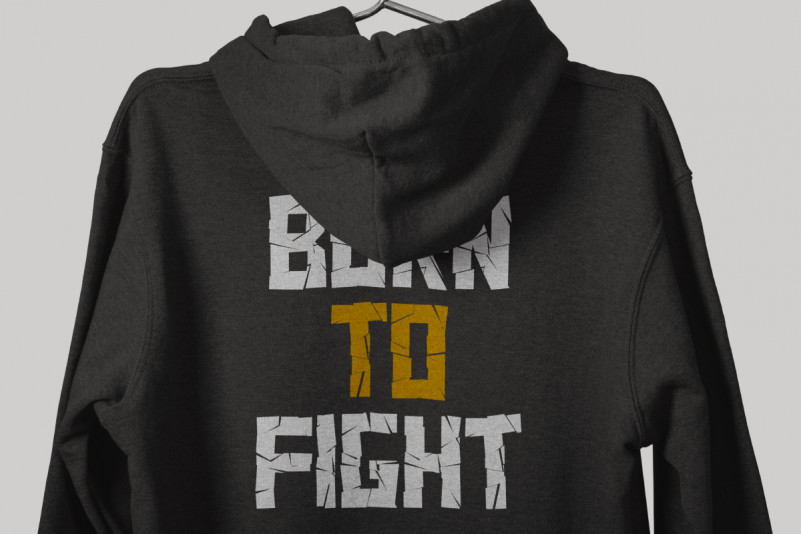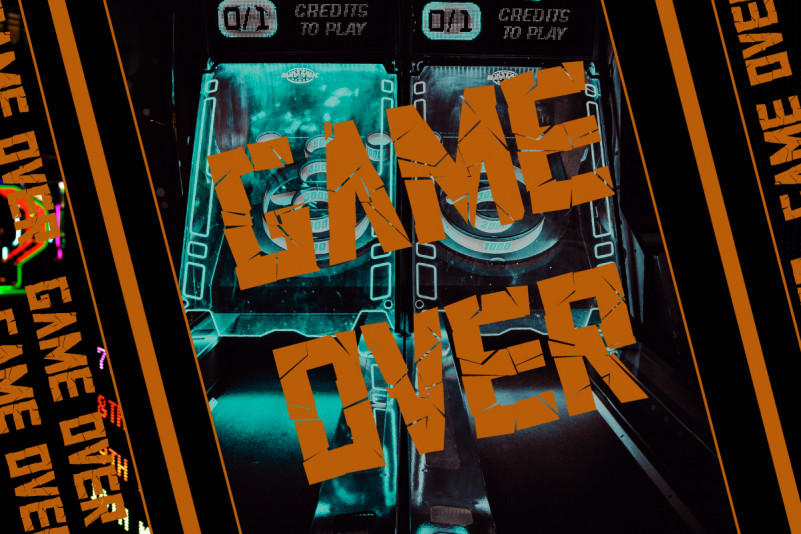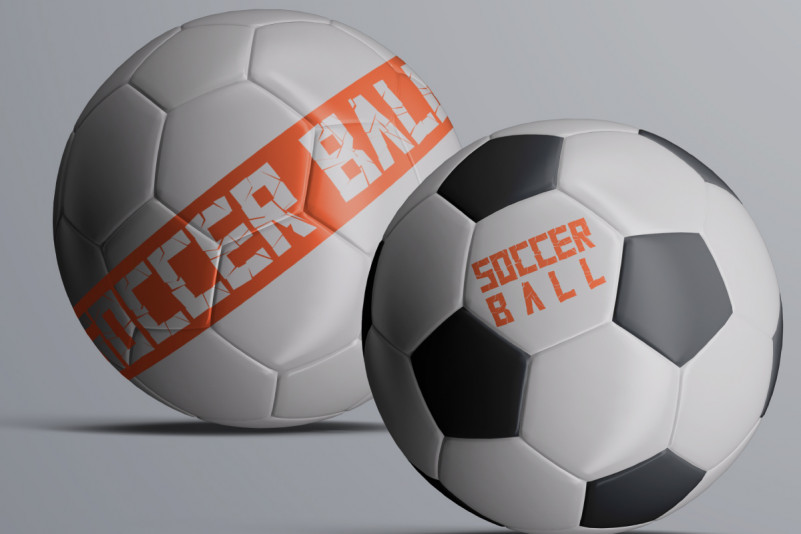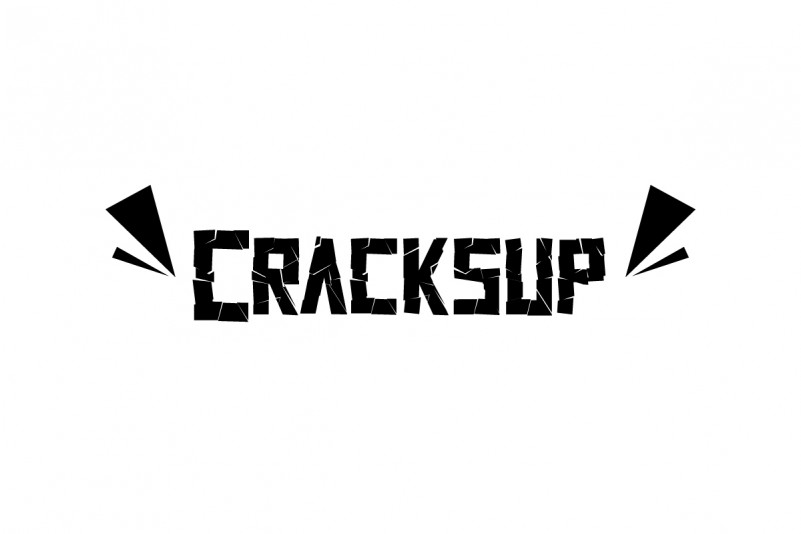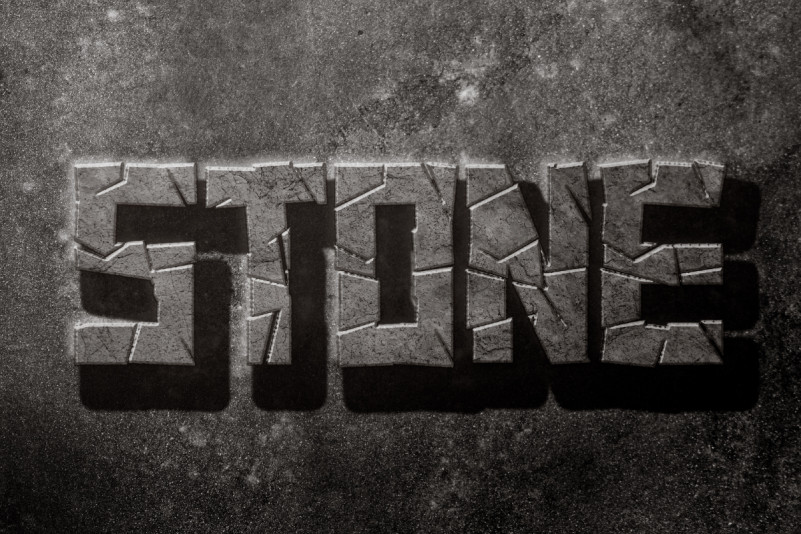
Cracksup Display Font
This font is great for any projects (require extended license) including : branding, logo, stationery, business card, signage, flyer, brochure etc. Cracksup Font comes with two styles : Regular and Italic. Handcrafted here in our Studio Indonesia.